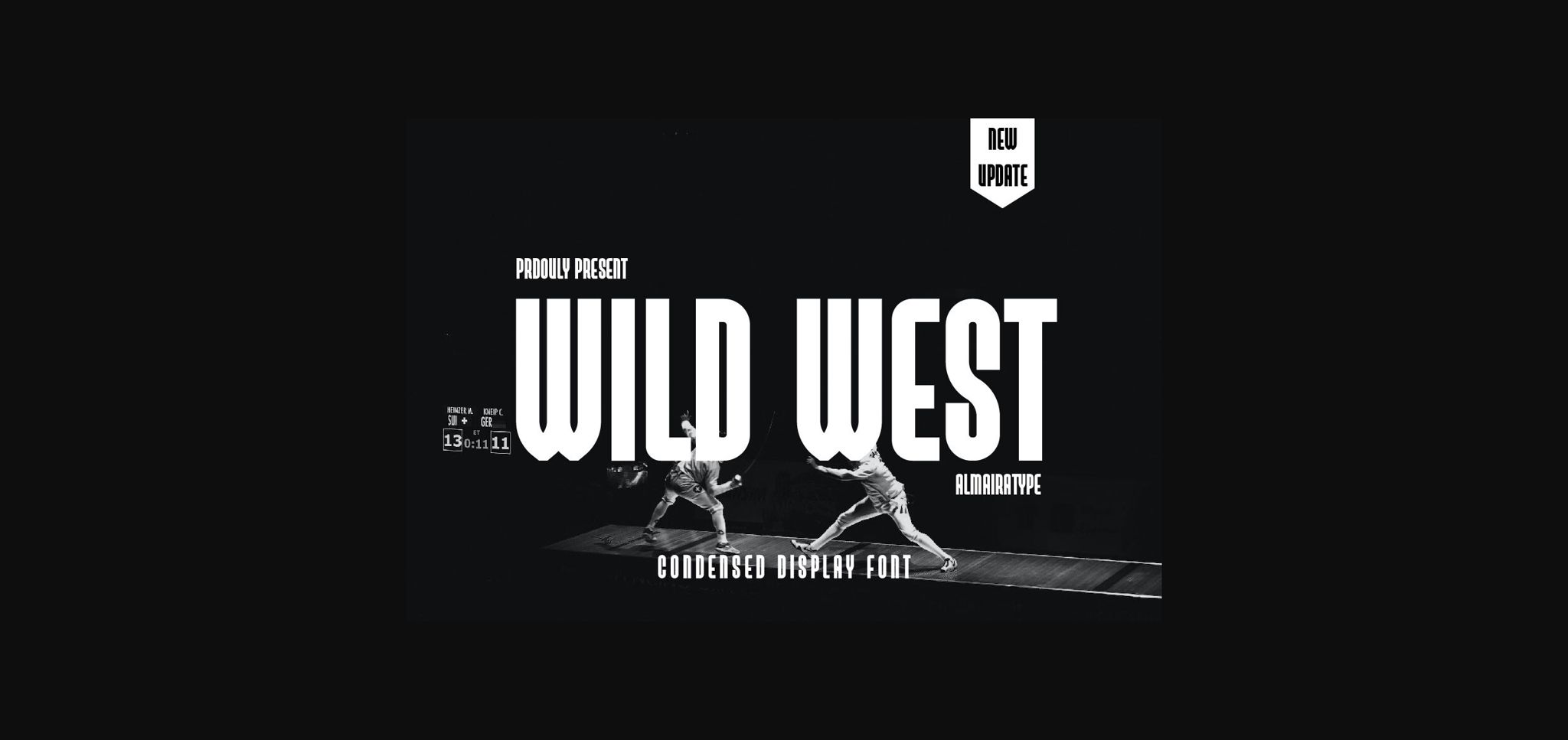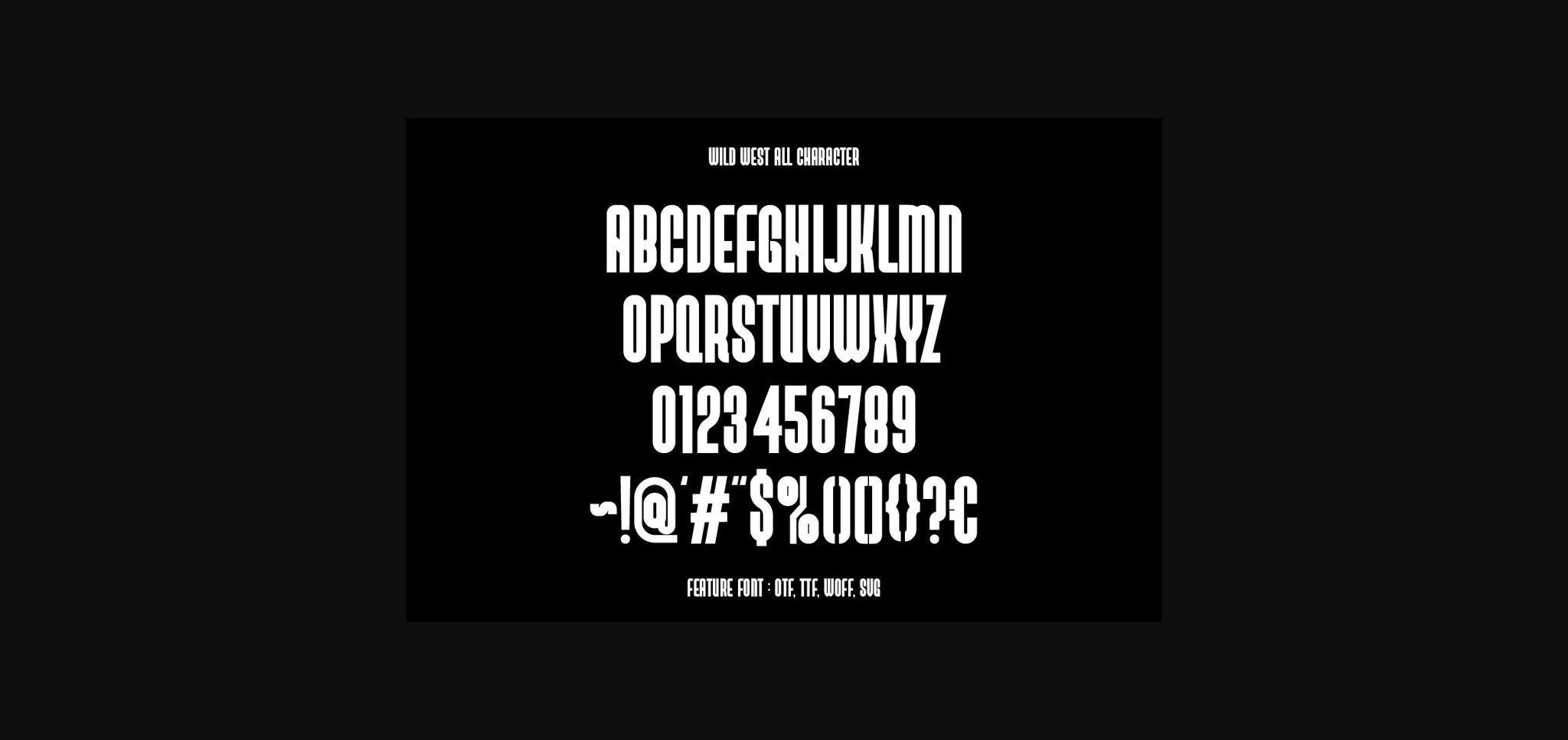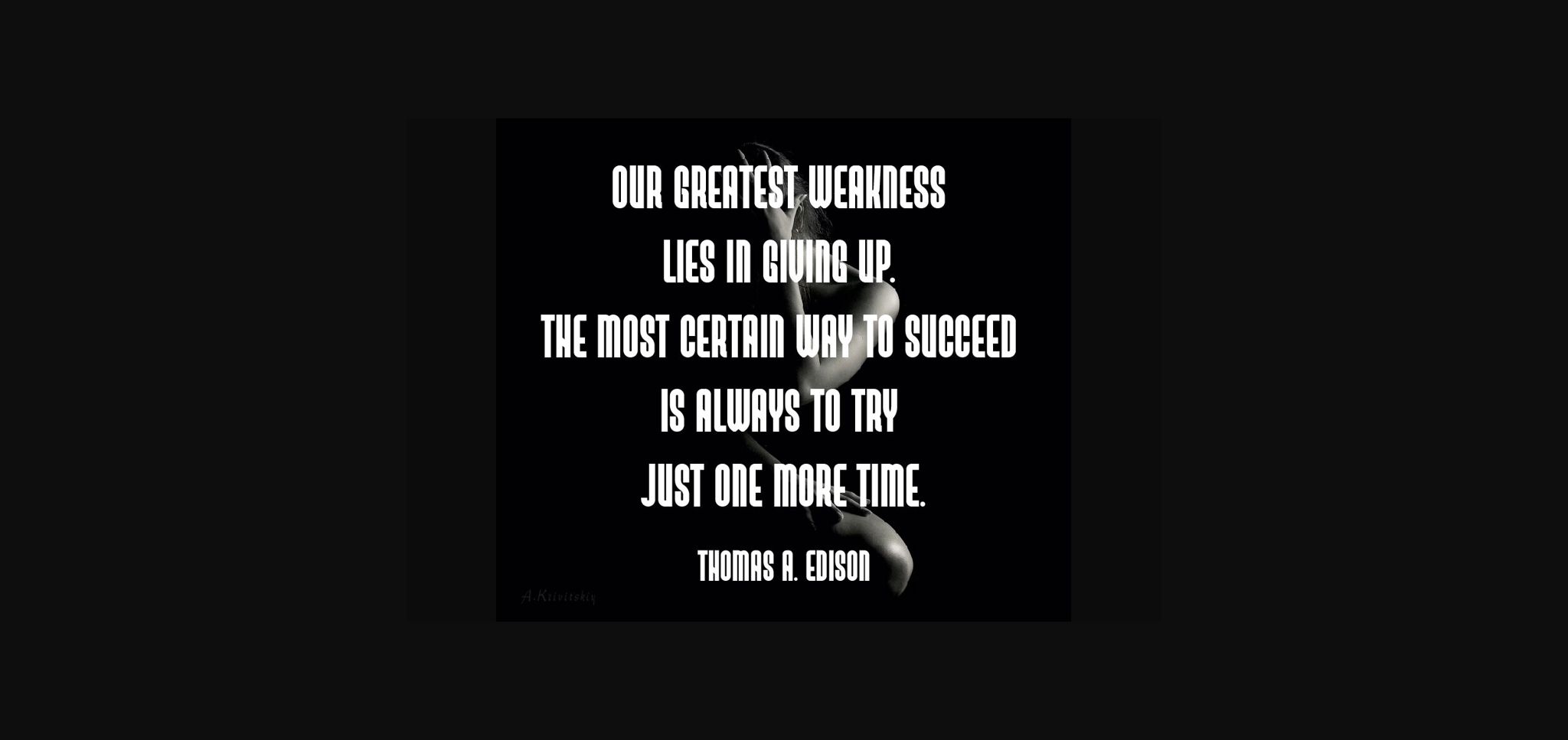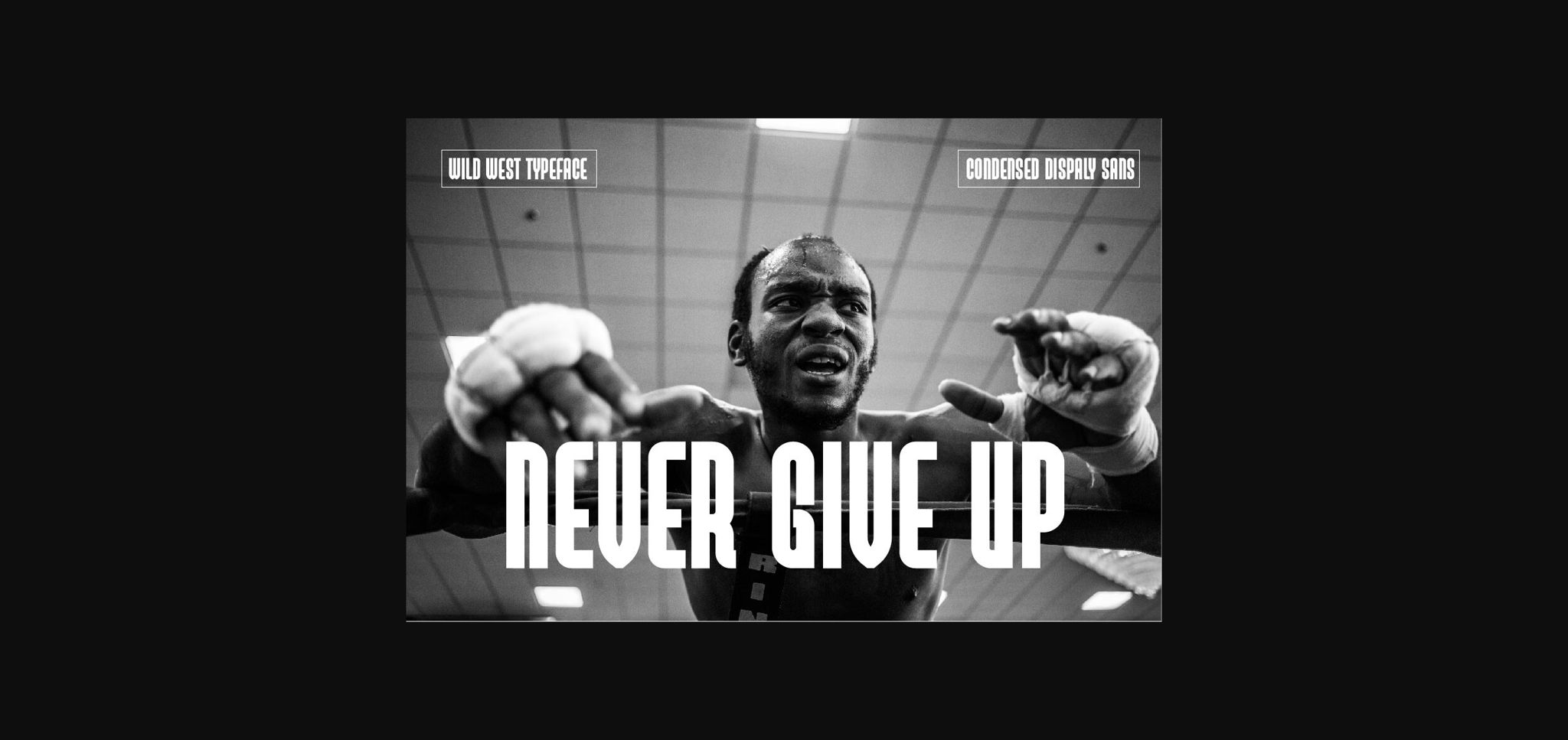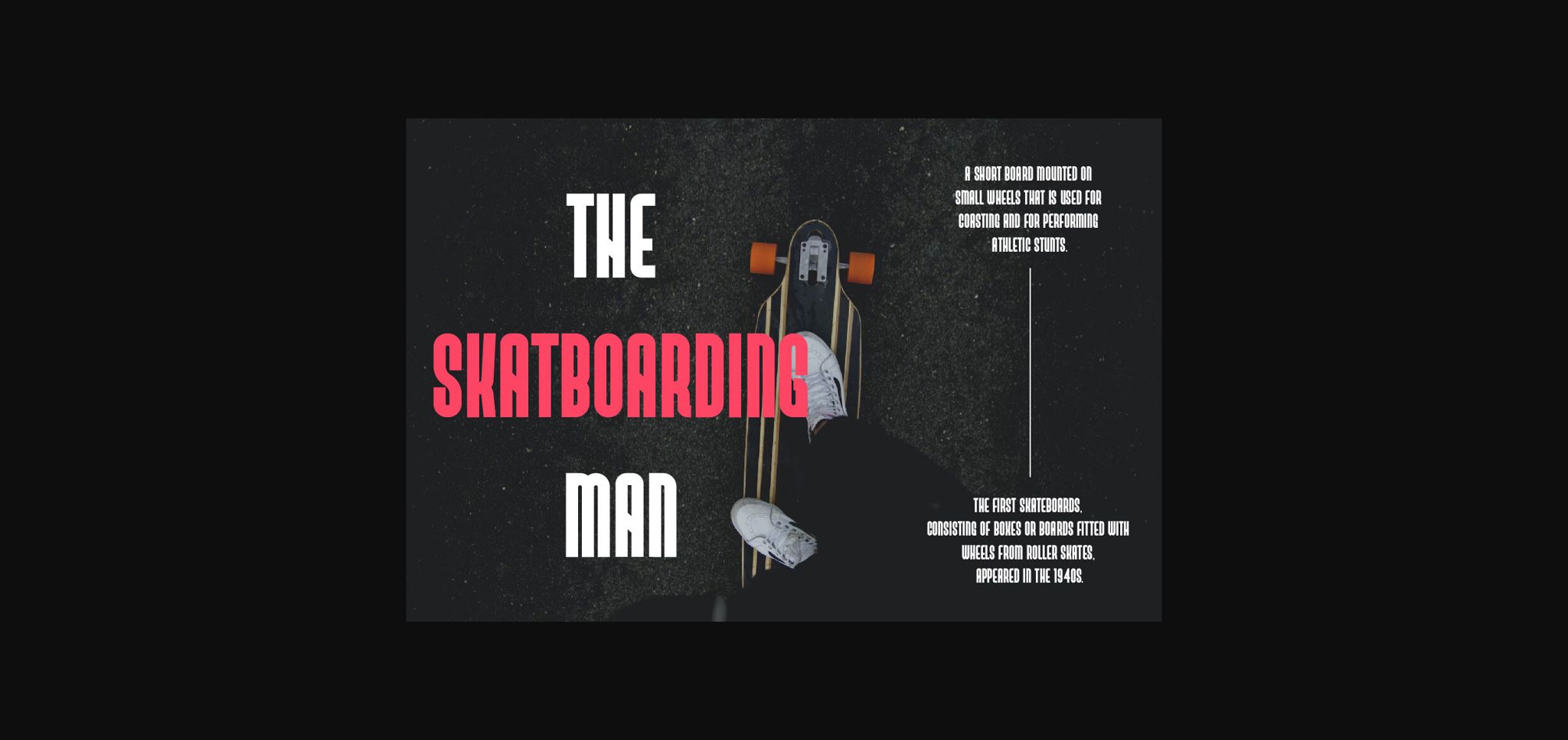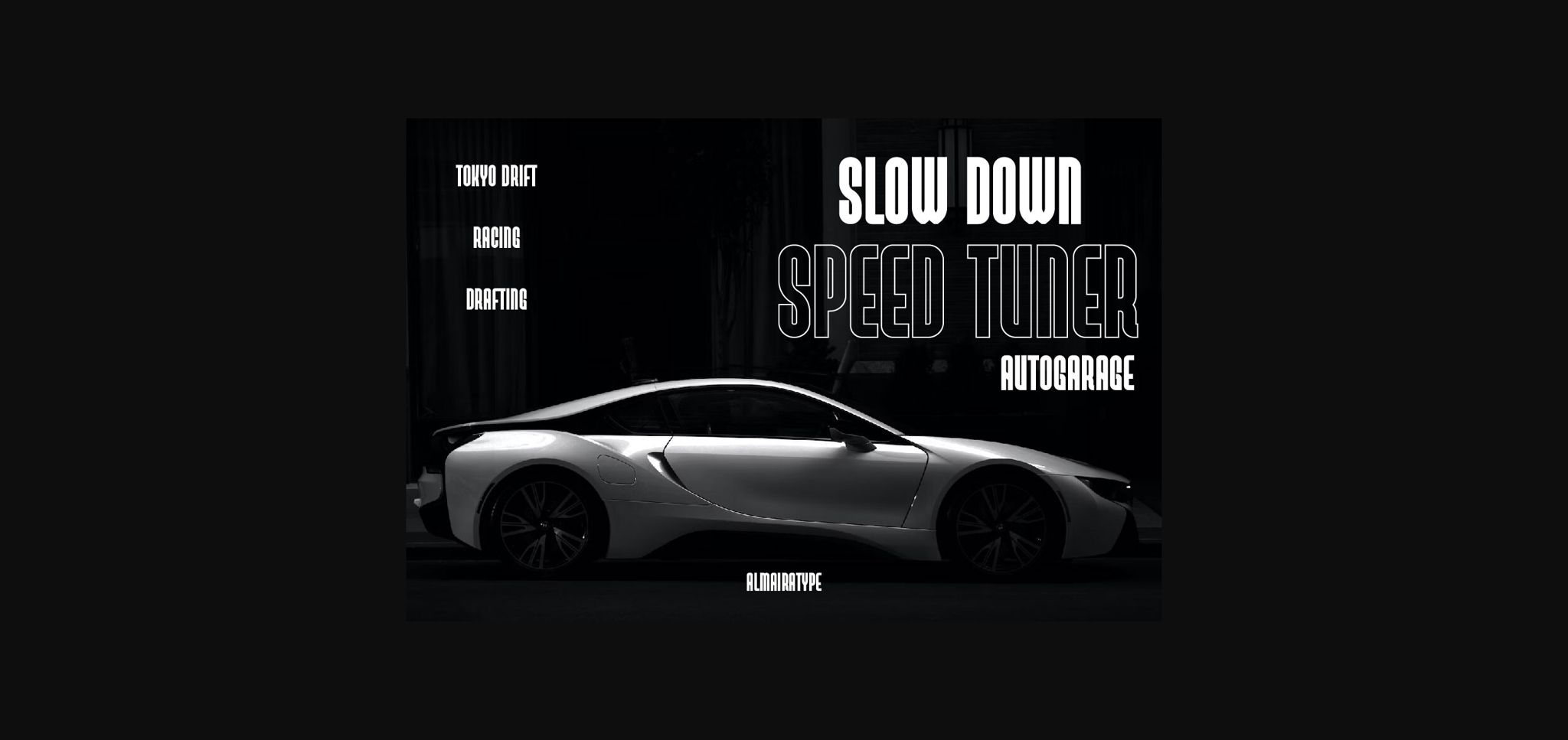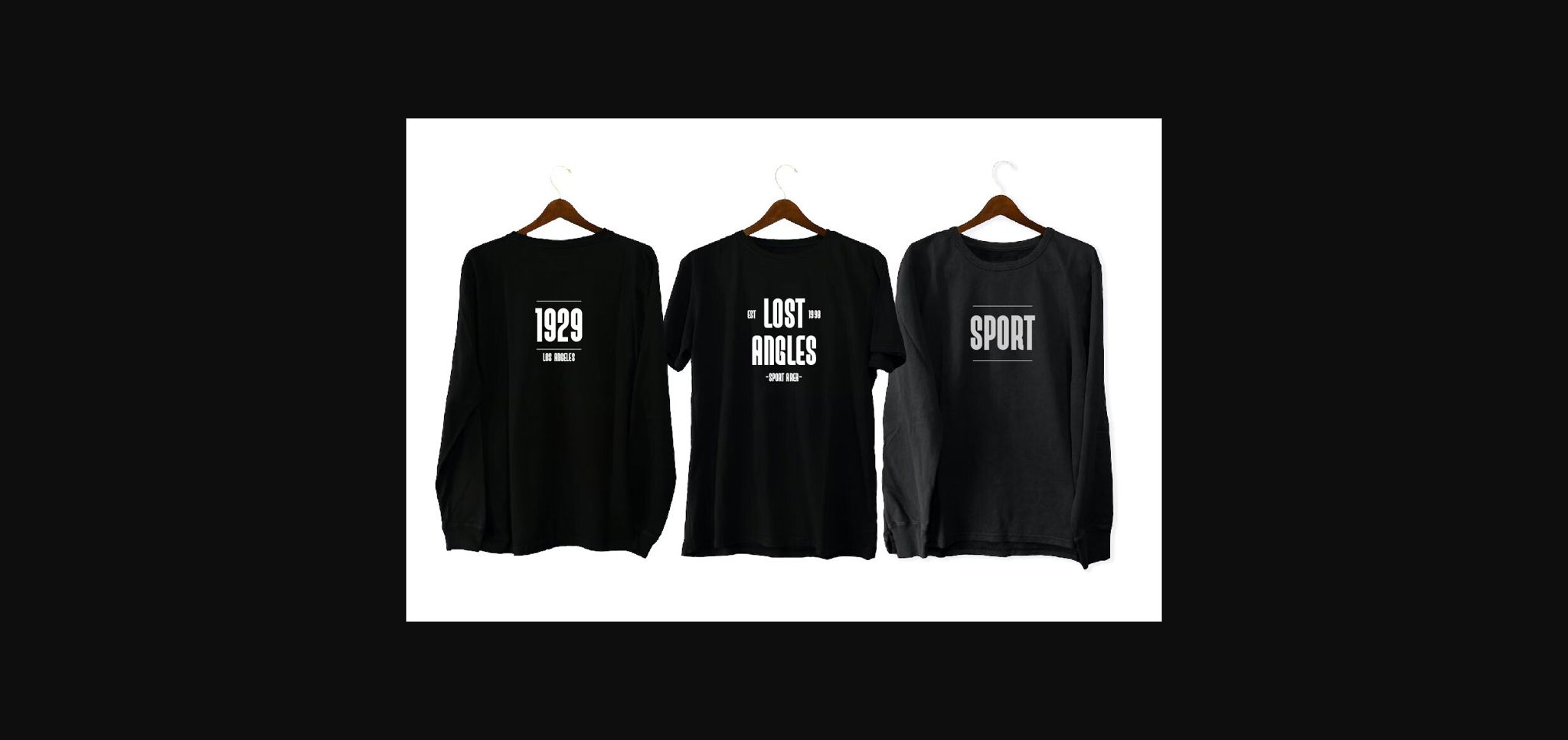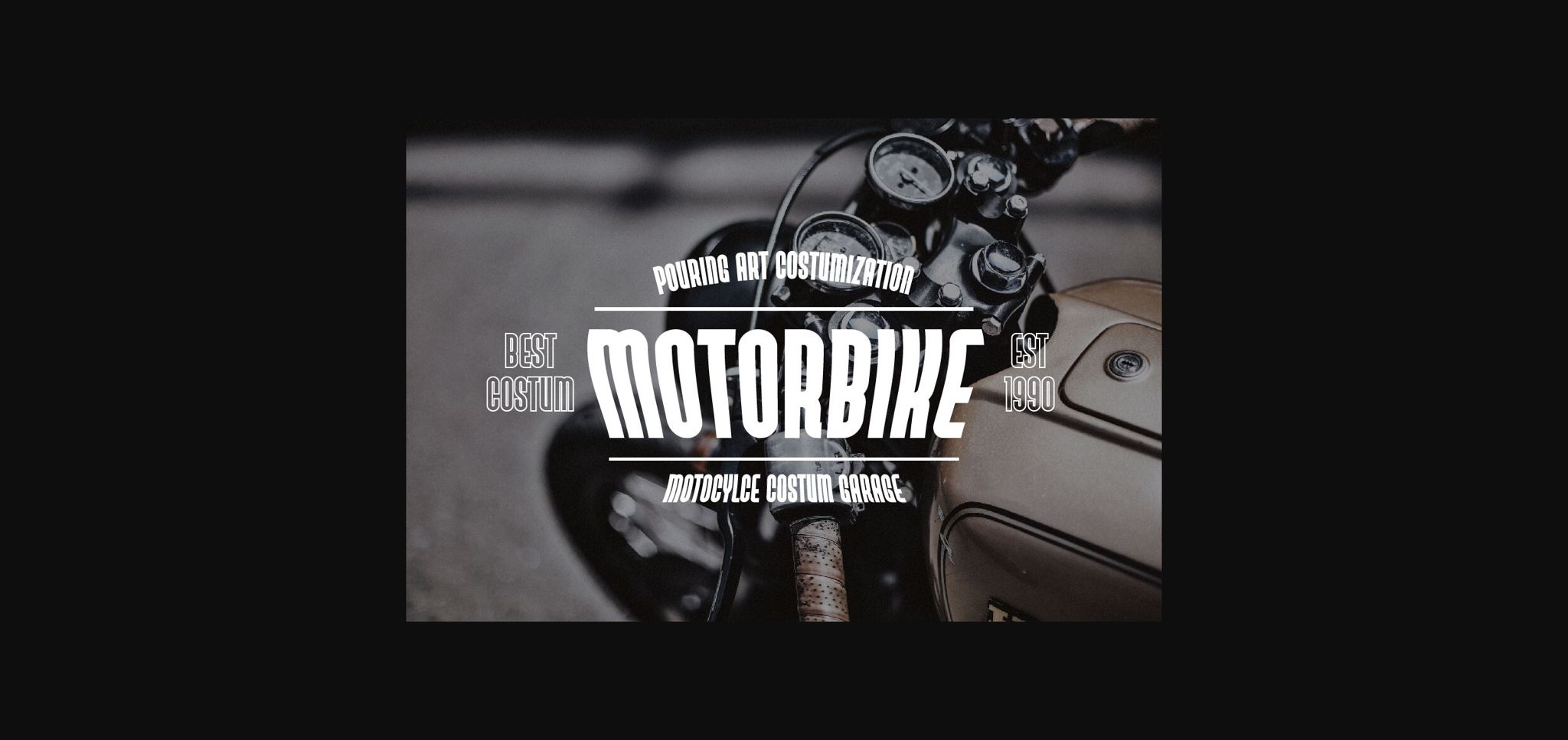
HomeSans Serif FontsWild West Font Sans Serif Fonts Wild West Font FacebookXPinterestWhatsApp 1 of 10 ... Wild West Font Poster 2... Wild West Font Poster 3... Wild West Font Poster 4... Wild West Font Poster 5... Wild West Font Poster 6... Wild West Font Poster 7... Wild West Font Poster 8... Wild West Font Poster 9... Wild West Font Poster 10... About Wild West Font Wild West is a display font with a bold and modern sans serif style. This font is suitable for crafts, headlines, branding, business, print, t-shirts, apparel, Cricut, silhouettes and other creative ideas! DOWNLOAD NOW People also explored Algetura Font Beautiful Creature Font Astro Space Wellcome Paradise Font Onehunty Font Smile Girly Font Sutherland Font Dream Fly Font Realistic Mock-ups on Vintage Background 386 0 TagsWild West Font Previous articleAngeline FontNext articleMooonstrike Font LEAVE A REPLY Cancel reply Comment: Please enter your comment! Name:* Please enter your name here Email:* You have entered an incorrect email address! Please enter your email address here Website: Save my name, email, and website in this browser for the next time I comment. Personal Use Free Husky Stash Personal Use Free Read more about this font Arc Personal Use Free Read more about this font Awesome Snowflakes Font Personal Use Free Read more about this font Shawaki Personal Use Free Read more about this font BLOG Free Fonts Risk: Why Free Fonts Can Be Dangerous for Designers Free Fonts Risk: Why Free Fonts Can Be Dangerous for Designers Using free fonts is a common practice in web and graphic design. However, the... Fonts That Capture the Spirit of New York City Best Fonts for YouTube Videos: Make Your Thumbnails Stand Out Where to Buy American Fonts Online in 2024